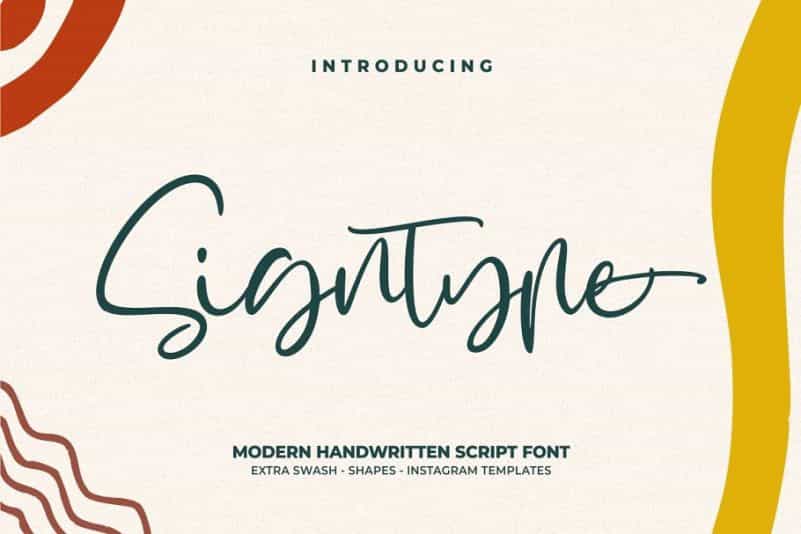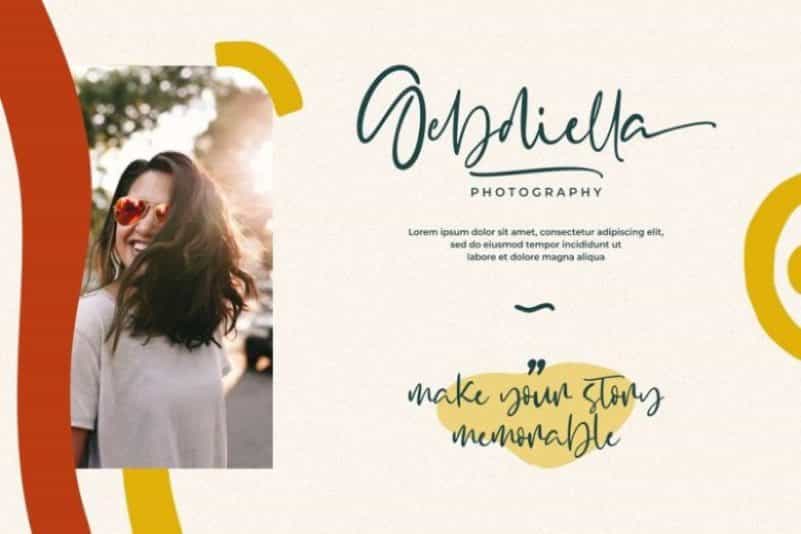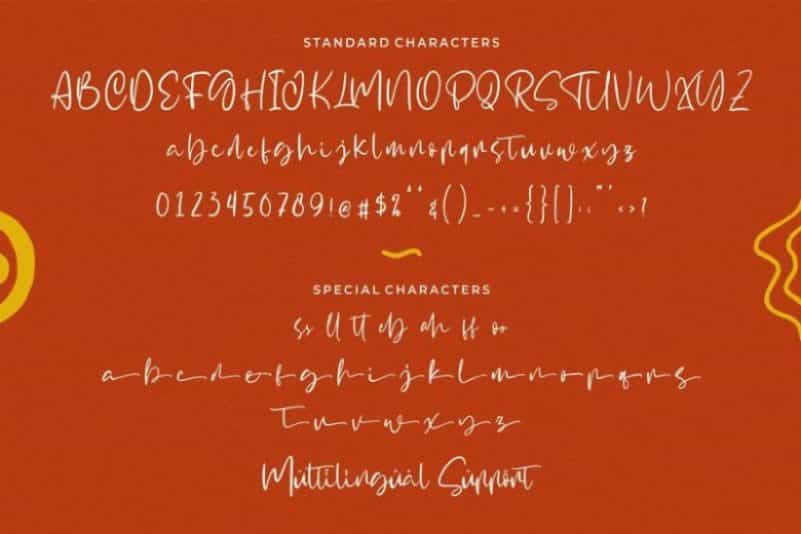
Signtype A beautiful handwritten font, a modern and beautiful signature script font. This font is perfect for beautiful logos, posters, wedding invitations, blog, social media, and many other projects. It is developed and published by Good Java Studio. It is a beautiful and elegant font that is made to look like handwritten text with a contemporary twist.